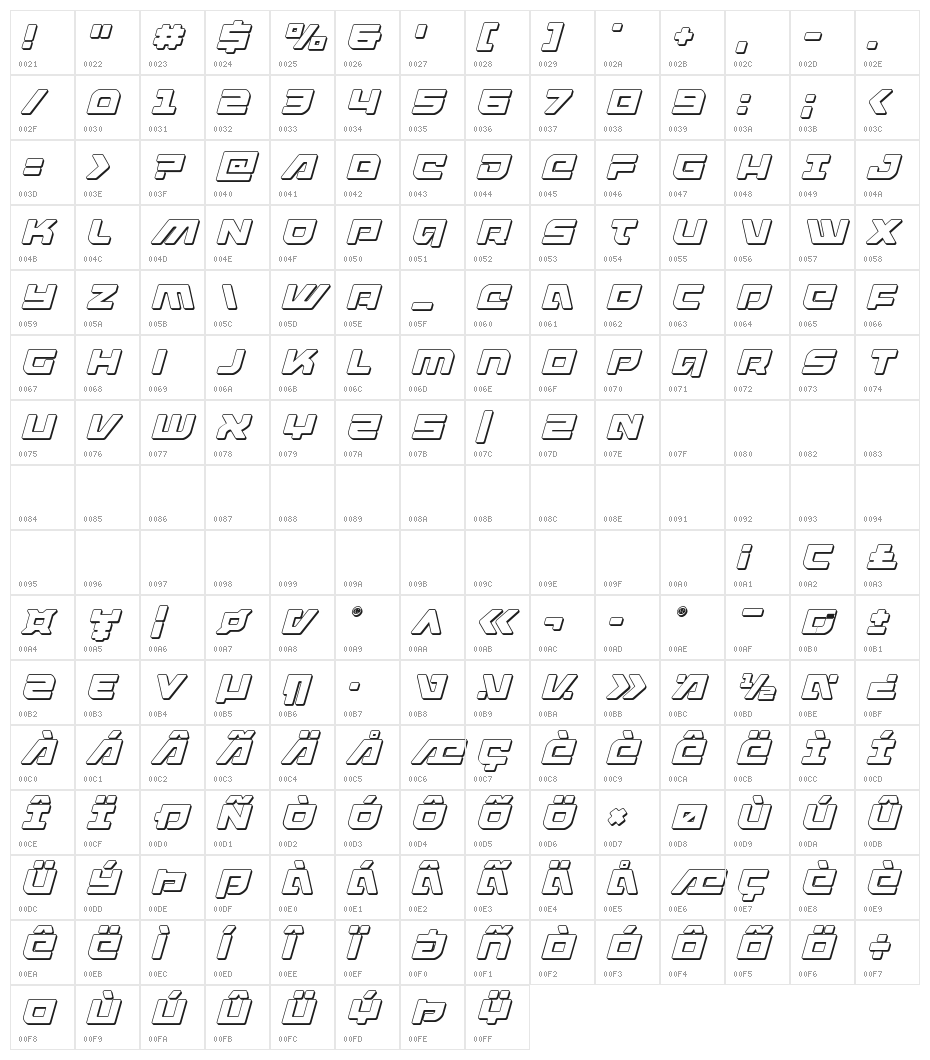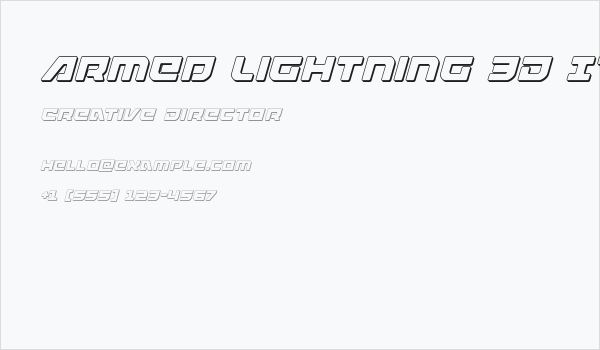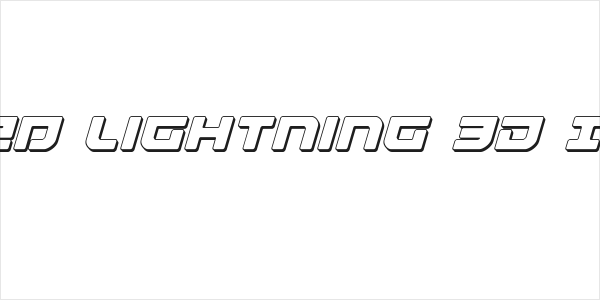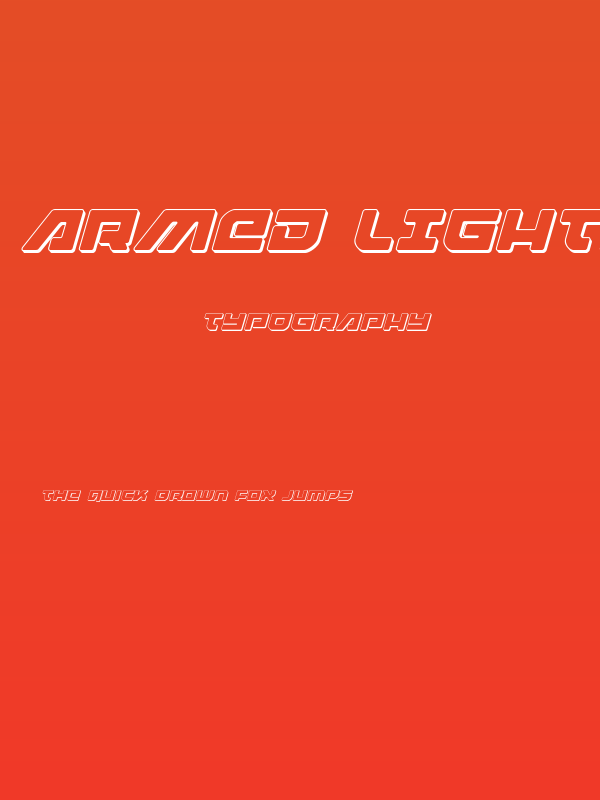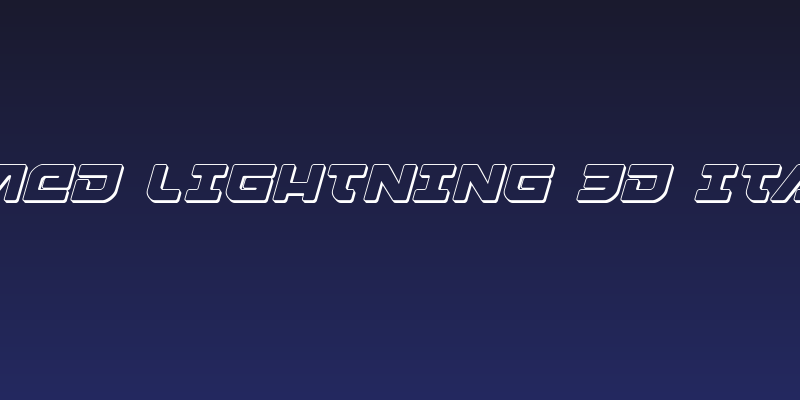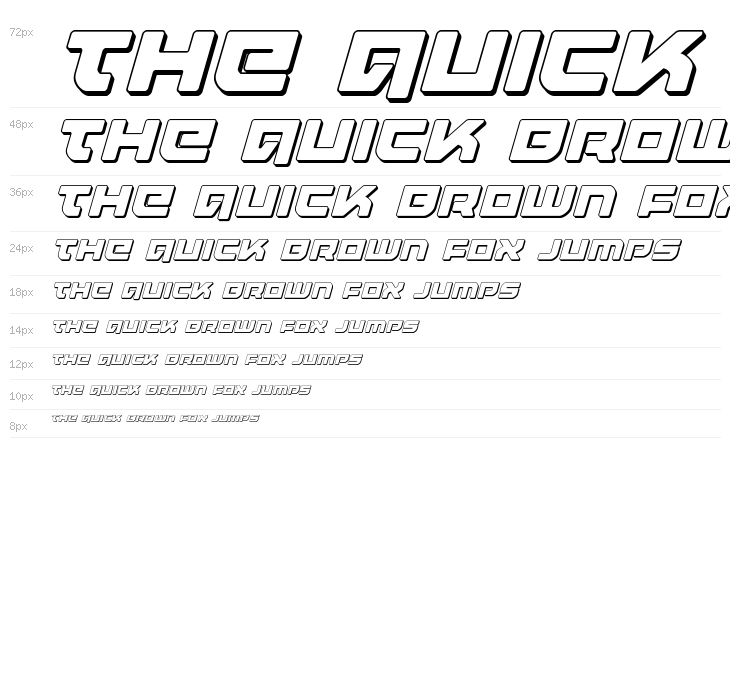
Armed Lightning 3D Italic Font
Armed Lightning 3D Italic Description
This font features a bold, futuristic design with a distinct 3D effect that gives each character a dynamic and energetic appearance. The italicized style adds a sense of motion and speed, making it ideal for projects that require a modern and edgy look. The characters are outlined, creating a hollow effect that enhances the three-dimensional illusion. The font maintains a consistent width and spacing, ensuring readability while still delivering a striking visual impact. Its geometric shapes and sharp angles contribute to a high-tech aesthetic, perfect for tech-related themes or creative displays.